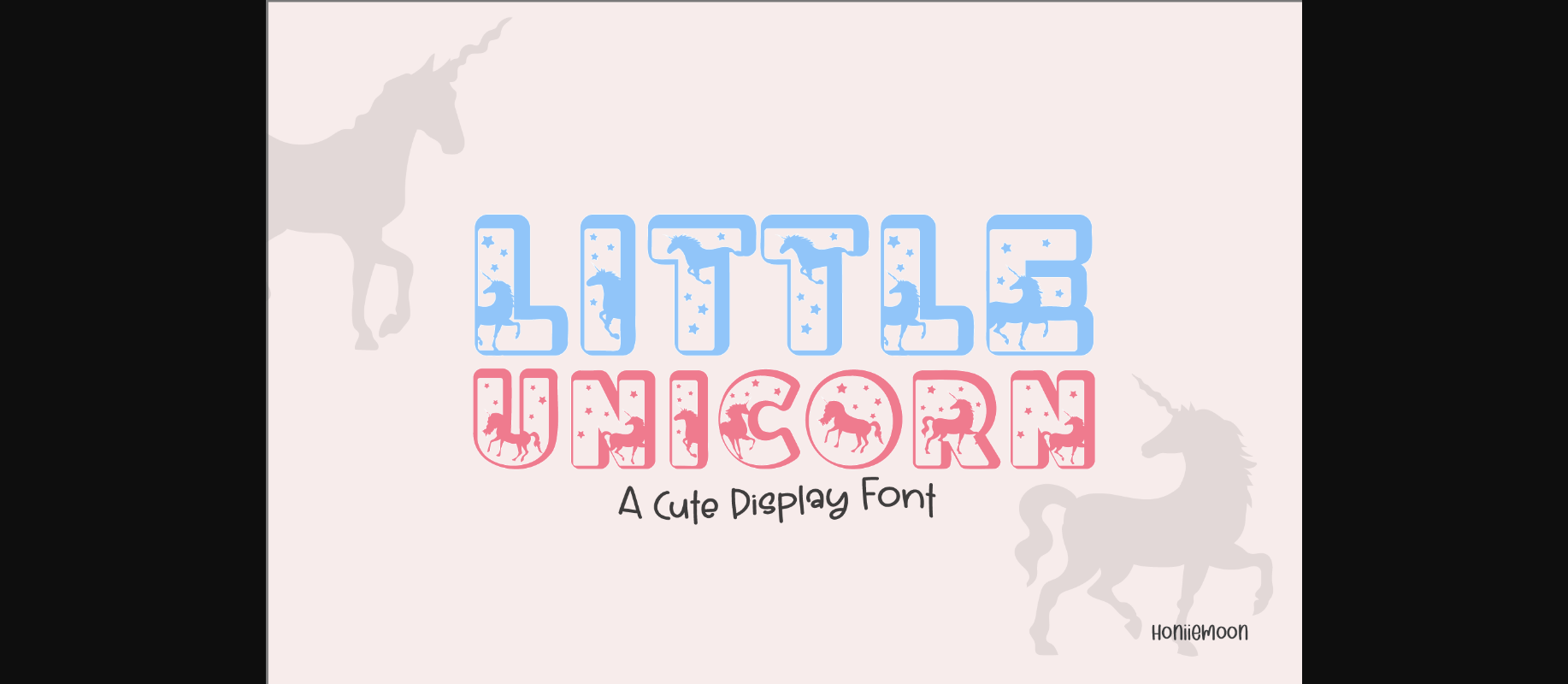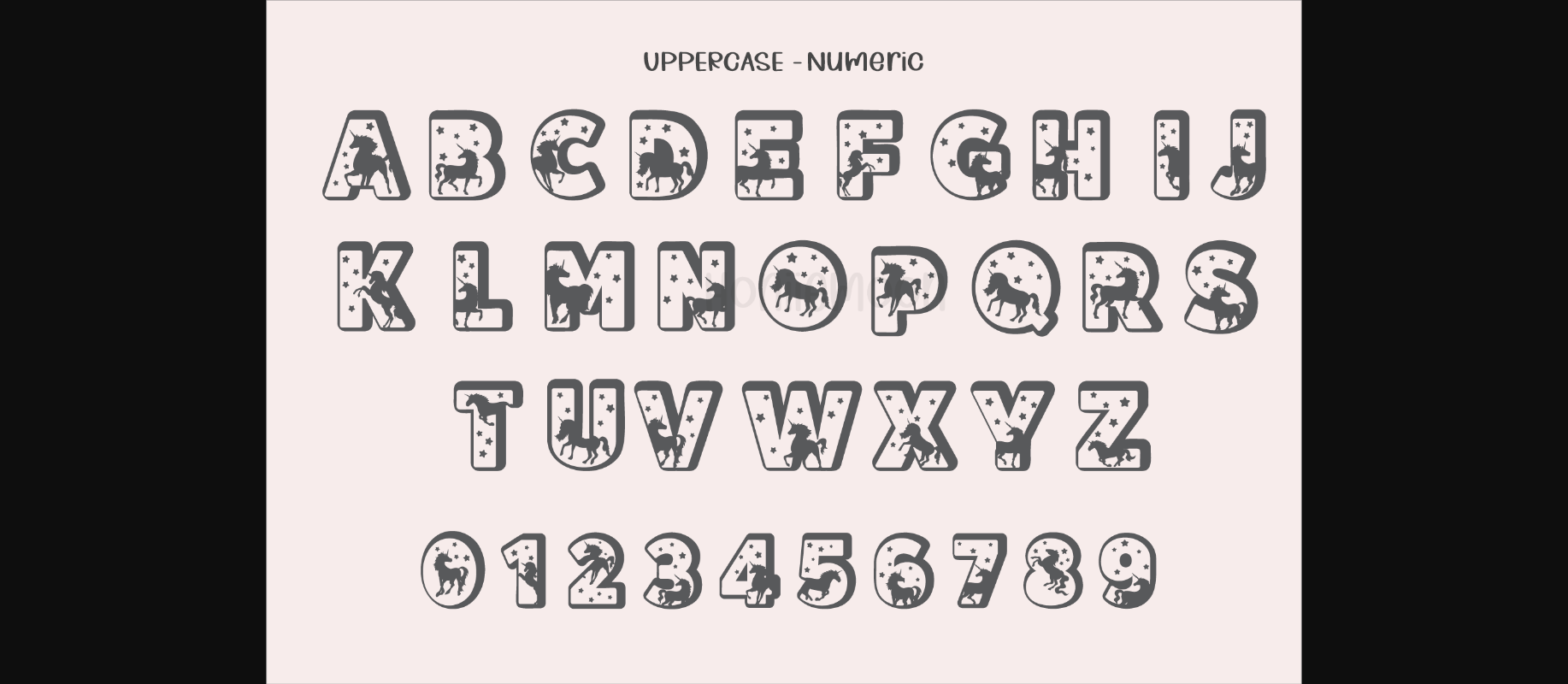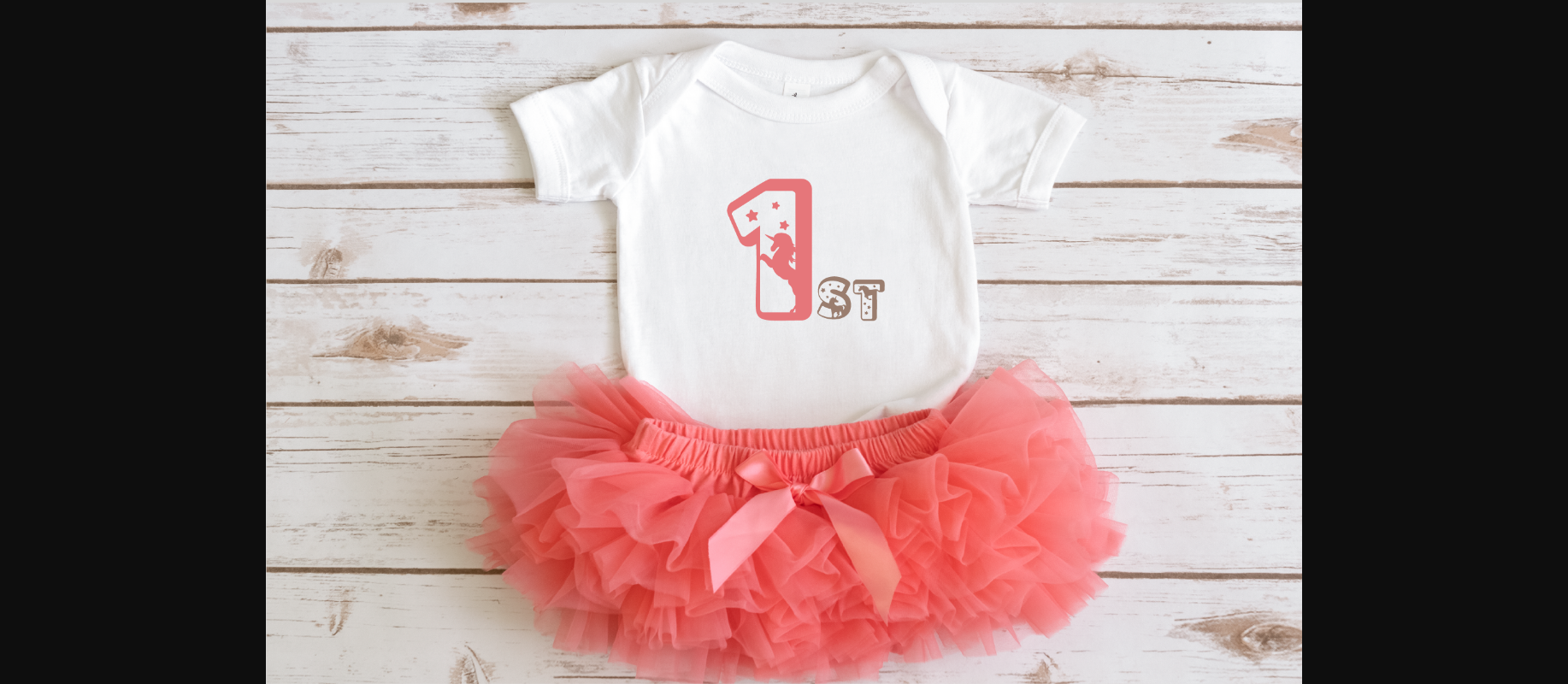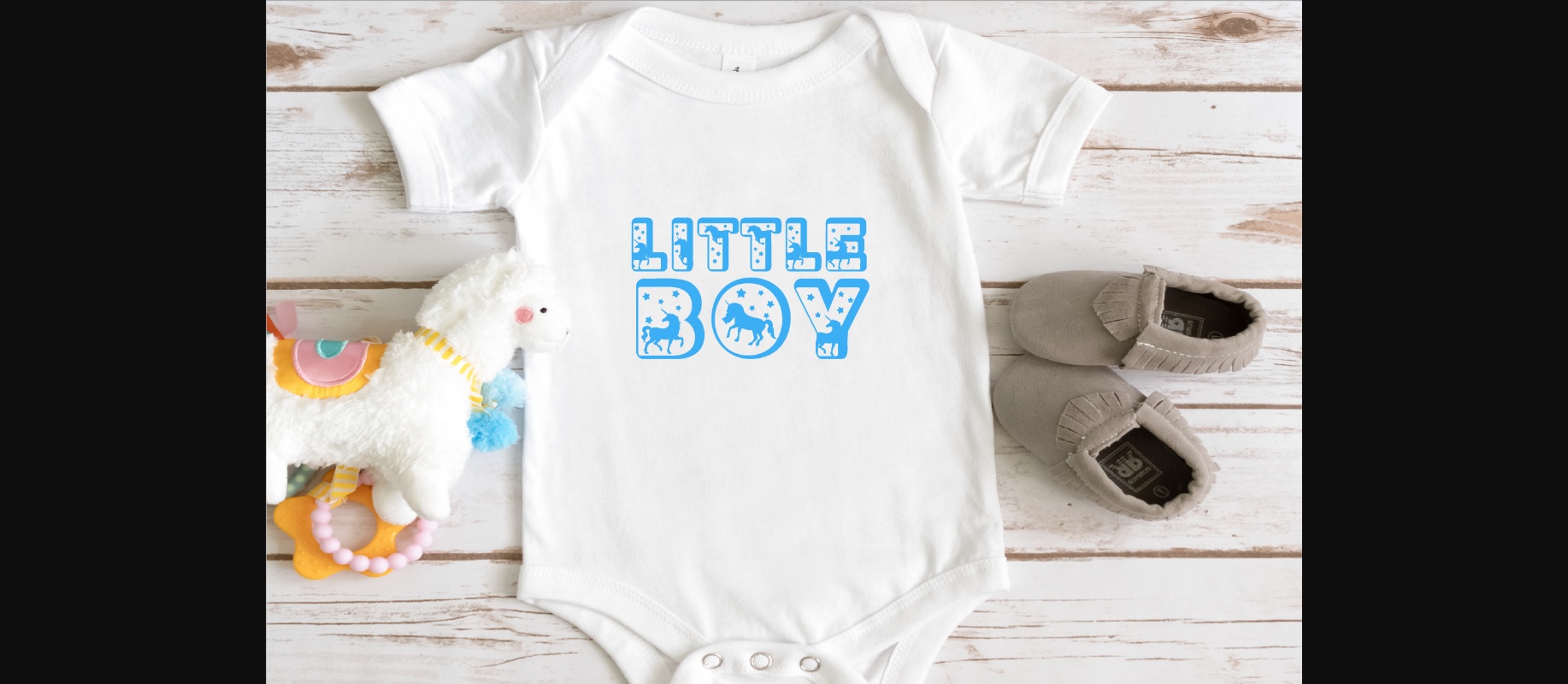
Little Unicorn Font
About Little Unicorn Font
Little Unicorn is a cool and magical decorative font. It looks both cute and jolly, and it will enhance each of your designs. The only limit is your imagination! Add this splendid decorative font to each of your creative ideas, and notice how it makes them come alive!